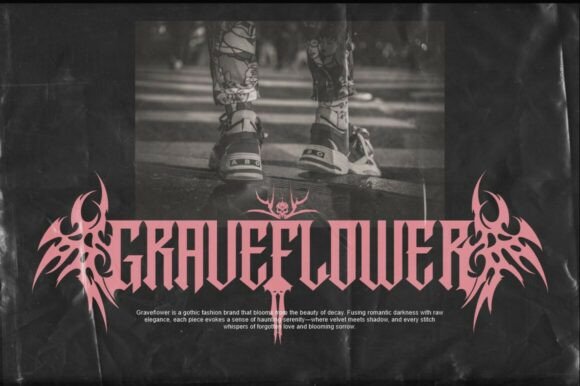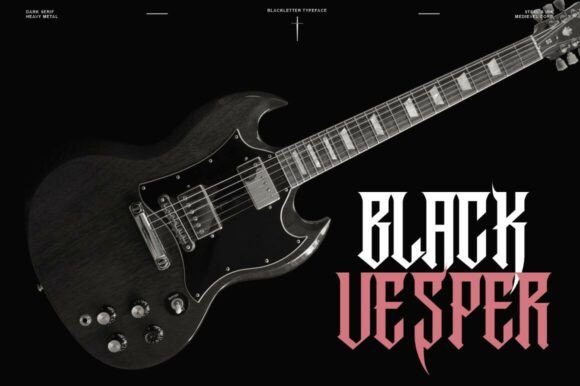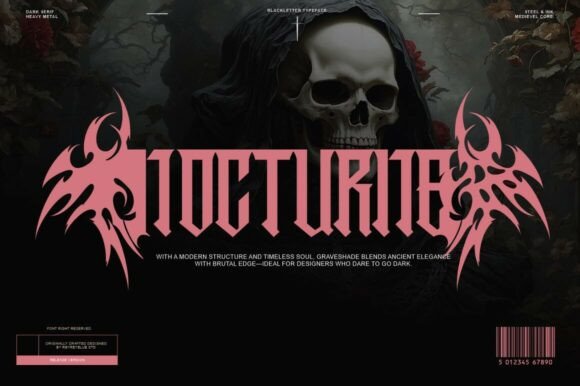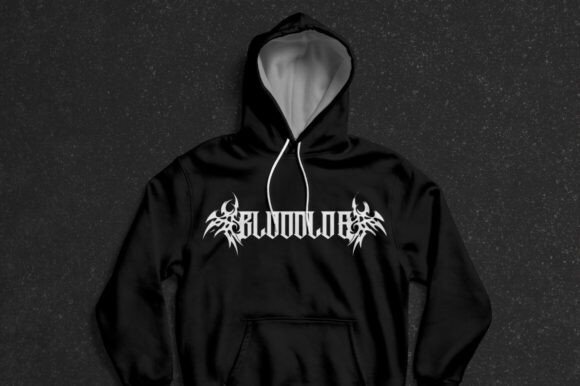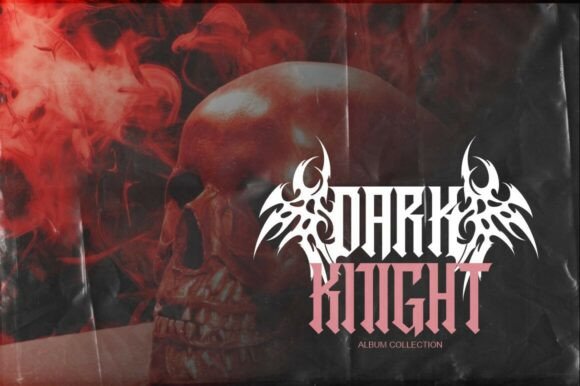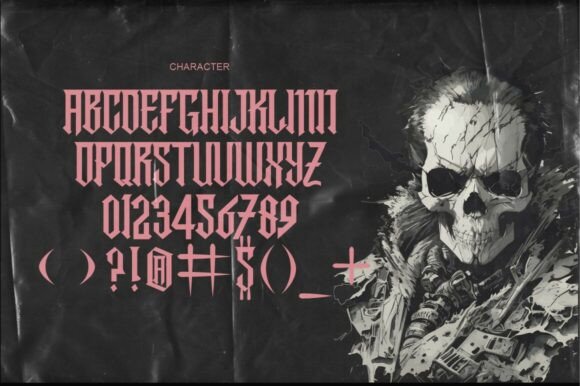
Unleash the Dark Elegance: Exploring the Grimwalde Font
In the realm of typography, few fonts evoke the same level of mystery and intrigue as the Grimwalde font. This dark serif blackletter typeface is not just a collection of letters; it’s a gateway to creating bold, gothic-inspired designs that speak to those who dare to venture into the shadows. With its 364 glyphs and an impressive range of alternate characters, Grimwalde offers designers an unparalleled level of versatility, making it the perfect companion for crafting metal band logos, horror titles, gothic fashion statements, tattoo art, and occult branding.
The Essence of Grimwalde: A Blend of Medieval Elegance and Modern Brutalism
Crafted with precision and a keen eye for detail, Grimwalde seamlessly blends ancient medieval elegance with a modern brutalist edge. This unique fusion gives the font its distinctive character, setting it apart from more traditional typefaces. The sharp serifs, tribal flourishes, and stylized alternates are not merely decorative elements; they are the building blocks of a typographic language that is both dramatic and expressive.
Designed for the Daring: Applications of Grimwalde
Grimwalde is more than just a font; it’s a design tool tailored for creatives who are not afraid to push boundaries. Here are some of the areas where Grimwalde truly shines:
• Metal Band Logos: The bold, gothic-inspired aesthetic of Grimwalde makes it an ideal choice for metal band logos, conveying the intensity and power of the music.
• Horror Titles: For filmmakers and writers in the horror genre, Grimwalde offers a typographic solution that promises to send shivers down the spine of audiences.
• Gothic Fashion: Designers in the fashion world can leverage Grimwalde’s elegance and edge to create branding and advertising materials that are both sophisticated and rebellious.
• Tattoo Art: The unique character of Grimwalde lends itself well to tattoo art, providing a distinctive style that can be customized to fit individual designs.
• Occult Branding: For brands that operate on the fringes or wish to evoke a sense of mystery and ancient knowledge, Grimwalde provides the perfect typographic solution.
Crafting with Character: The Features of Grimwalde
Every letterform in Grimwalde has been meticulously drawn to ensure clarity, impact, and dramatic flair, whether it’s viewed on screen or in print. The inclusion of PUA (Private Use Area) encoding means that all stylistic features and extras are easily accessible, allowing designers to bring their most ambitious projects to life with just a few clicks.
The extensive character set of 364 glyphs includes:
• Sharp Serifs: Adding a touch of sophistication and menace to the font.
• Tribal Flourishes: Providing an element of wildness and untamed energy.
• Stylized Alternates: Offering designers the flexibility to create custom typographic compositions that are rich in personality and depth.
Conclusion: Unleashing Your Creativity with Grimwalde
Grimwalde is not just a font; it’s an invitation to explore the darker, more mysterious corners of design. With its unique blend of medieval elegance and modern brutalism, Grimwalde offers a typographic solution that is as versatile as it is powerful. Whether you’re a designer looking to push the boundaries of gothic-inspired design or a craftsperson aiming to create something with a bit of an edge, Grimwalde is your key to unlocking a world of bold, dramatic, and unforgettable creations.
Embrace the darkness, and let Grimwalde guide you into a realm of design where the ordinary rules of typography are transformed into something extraordinary.